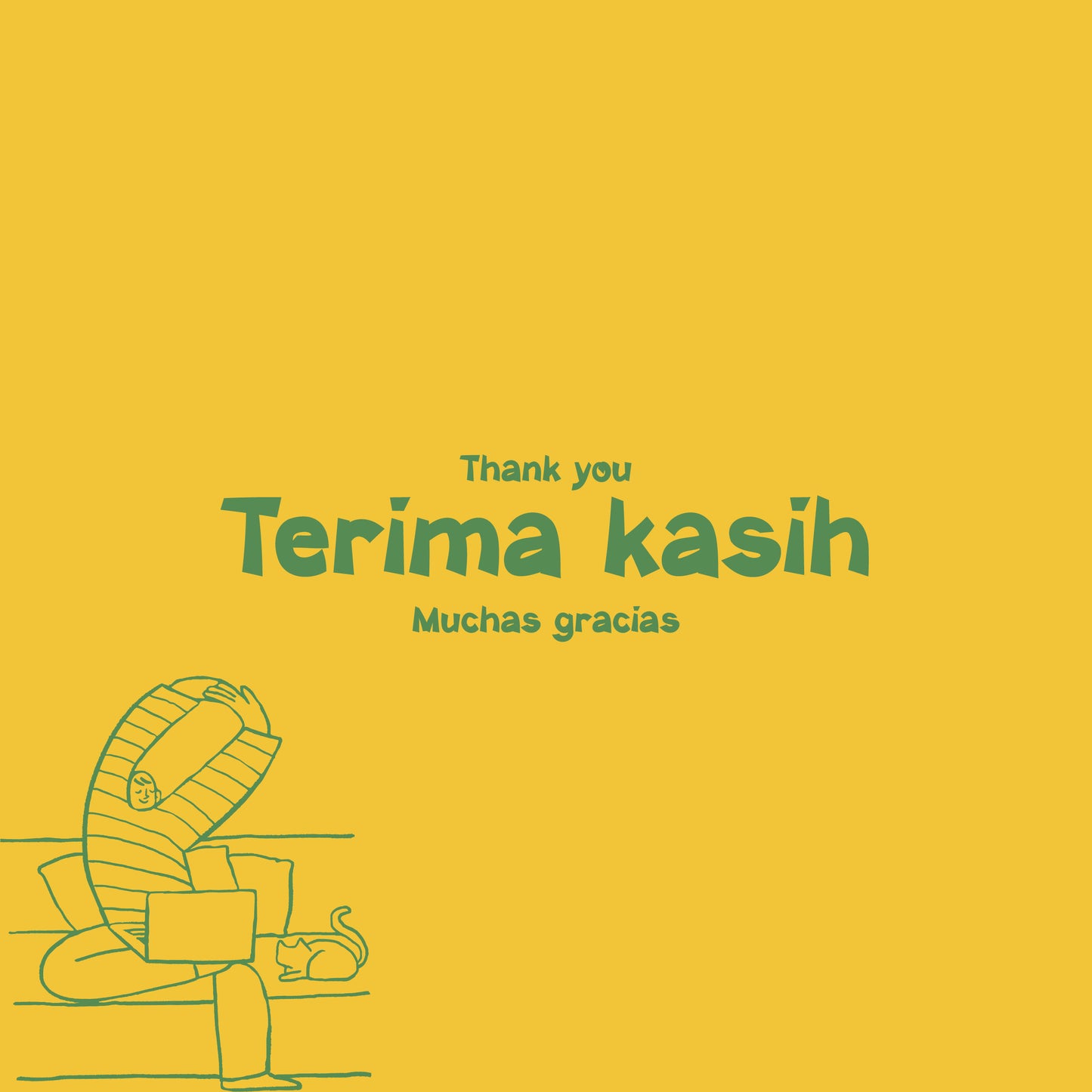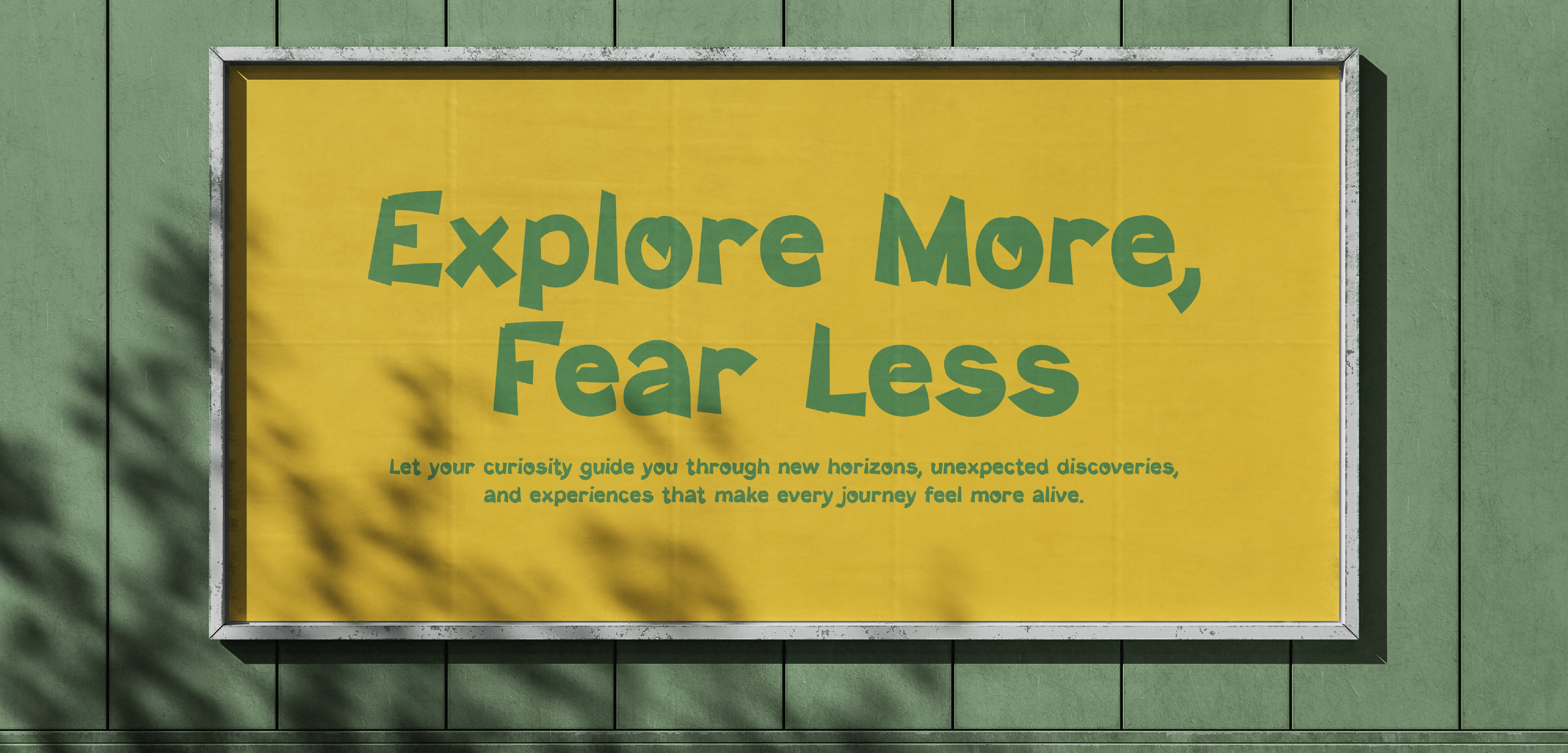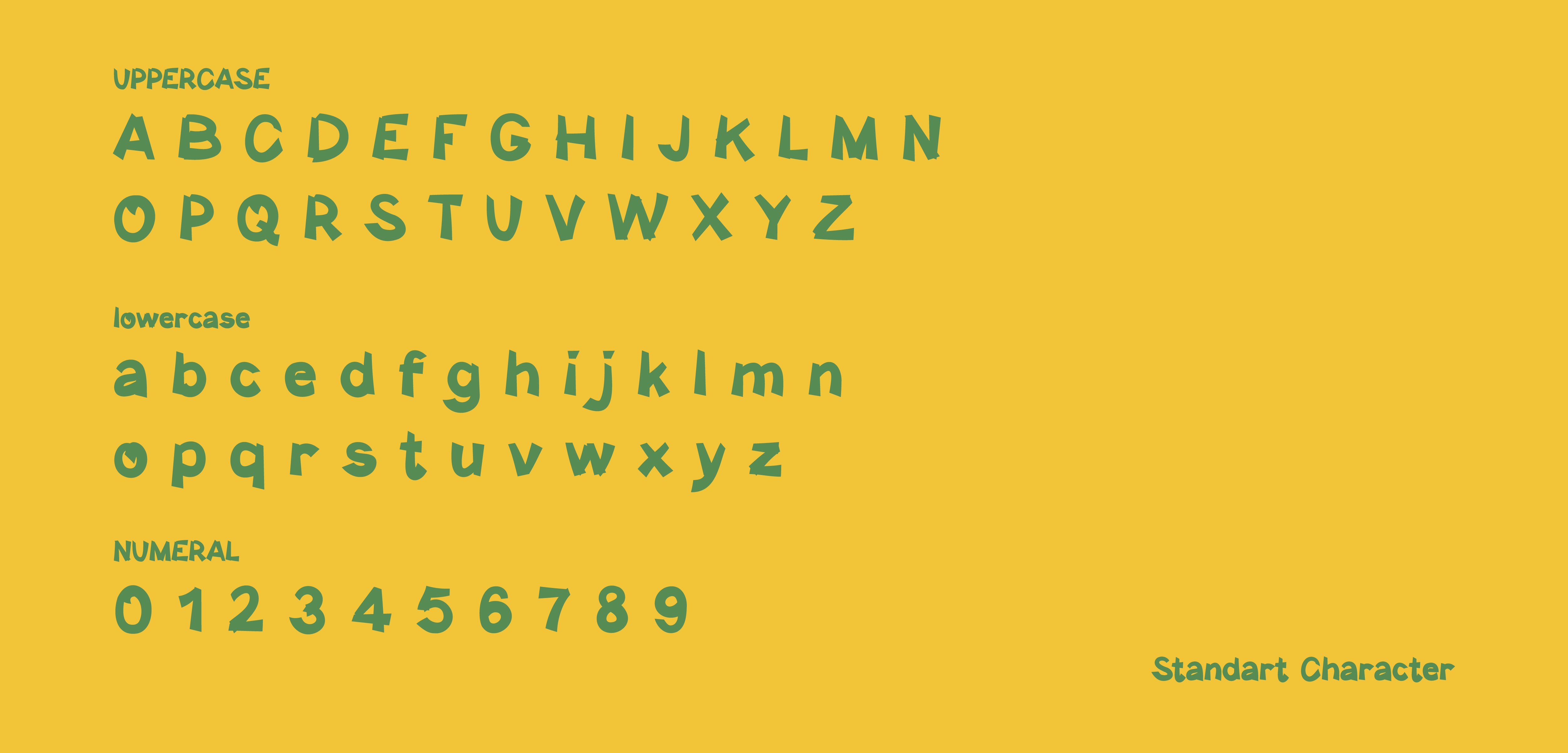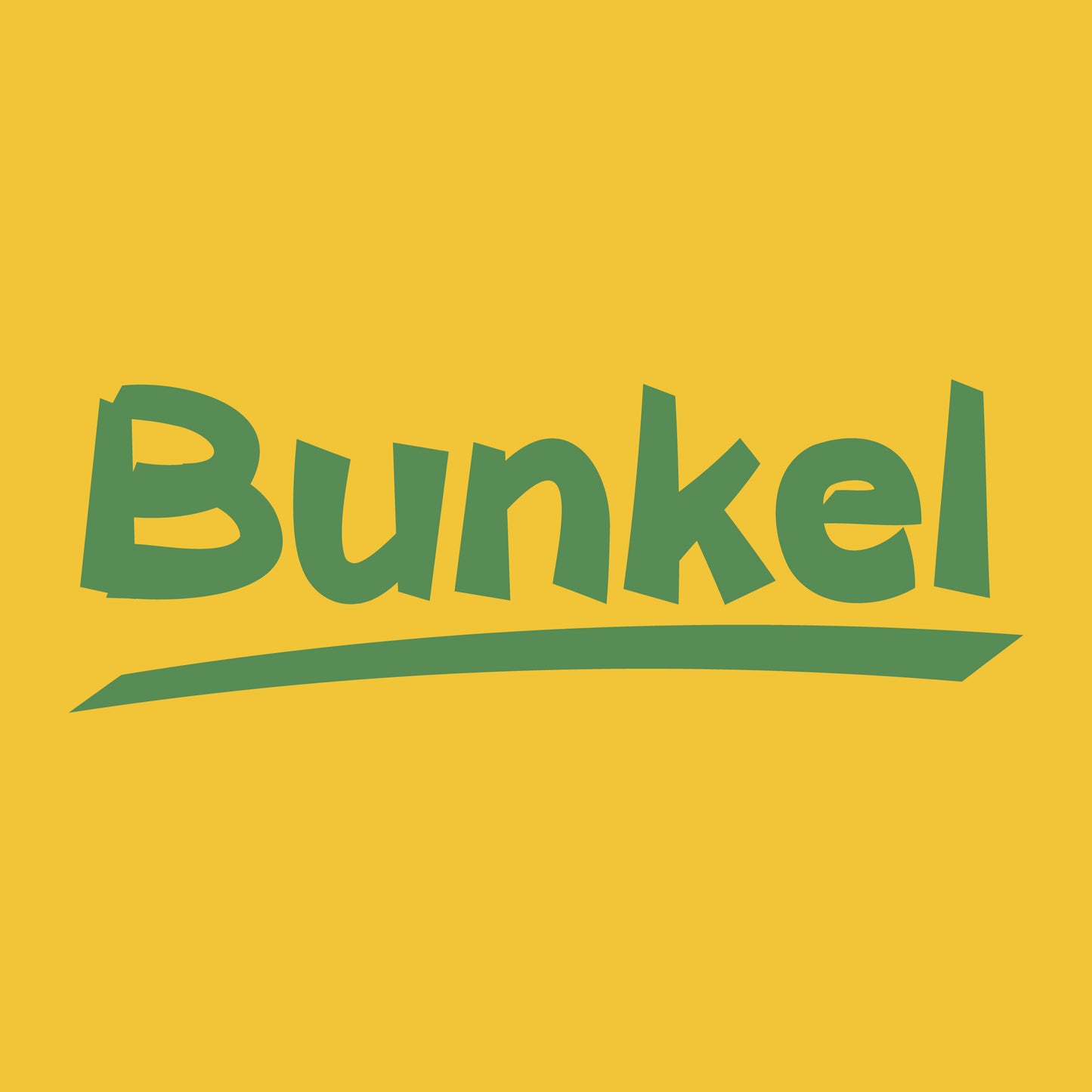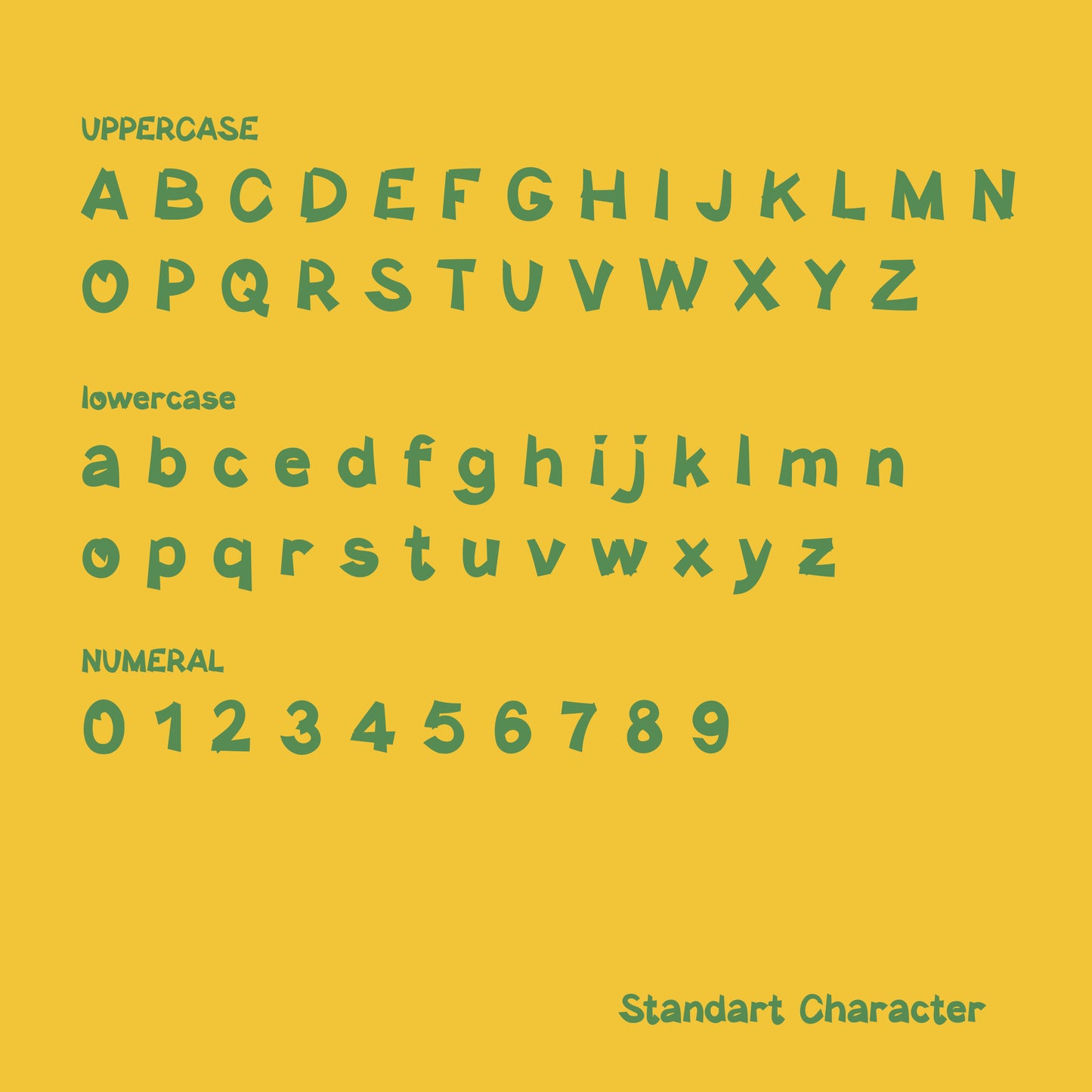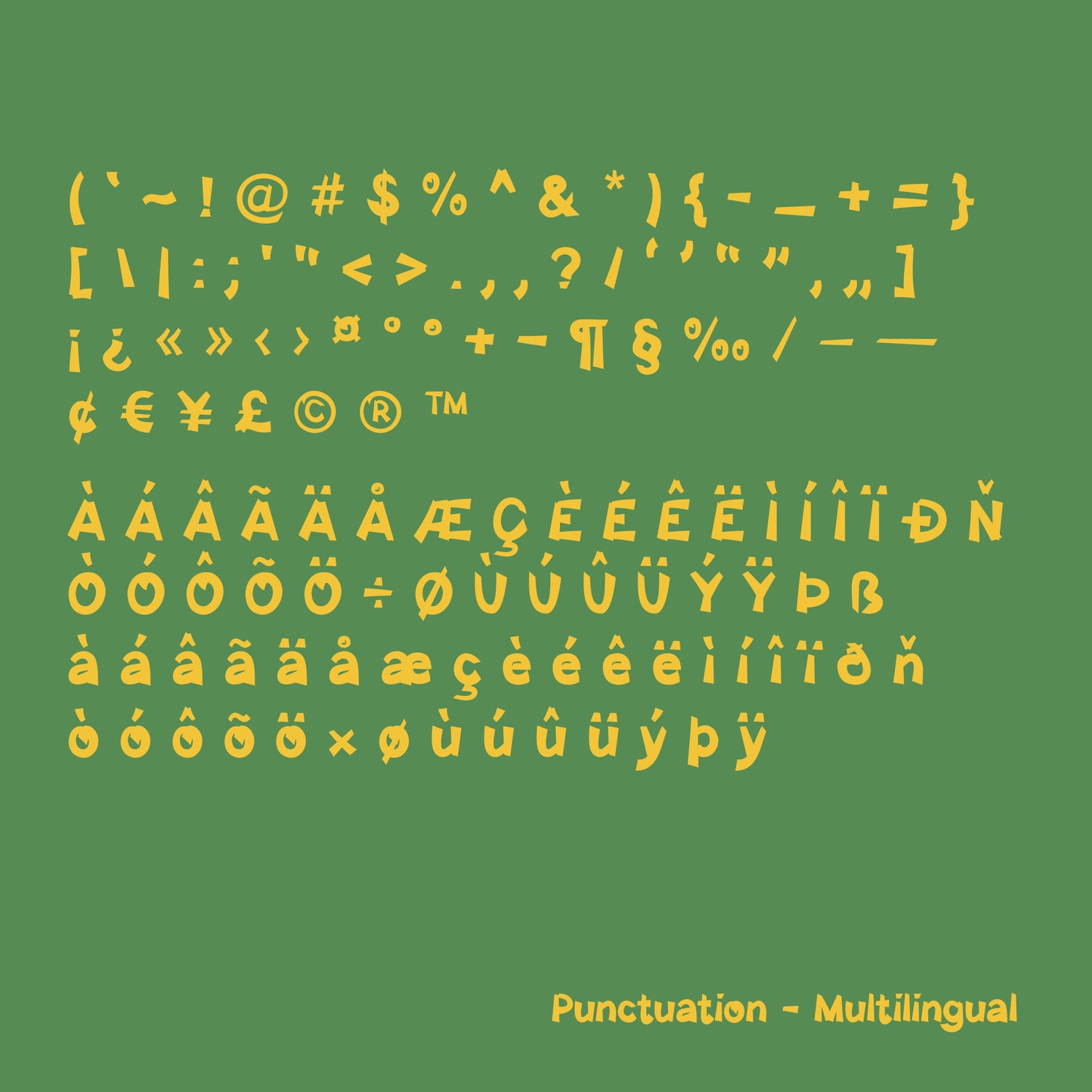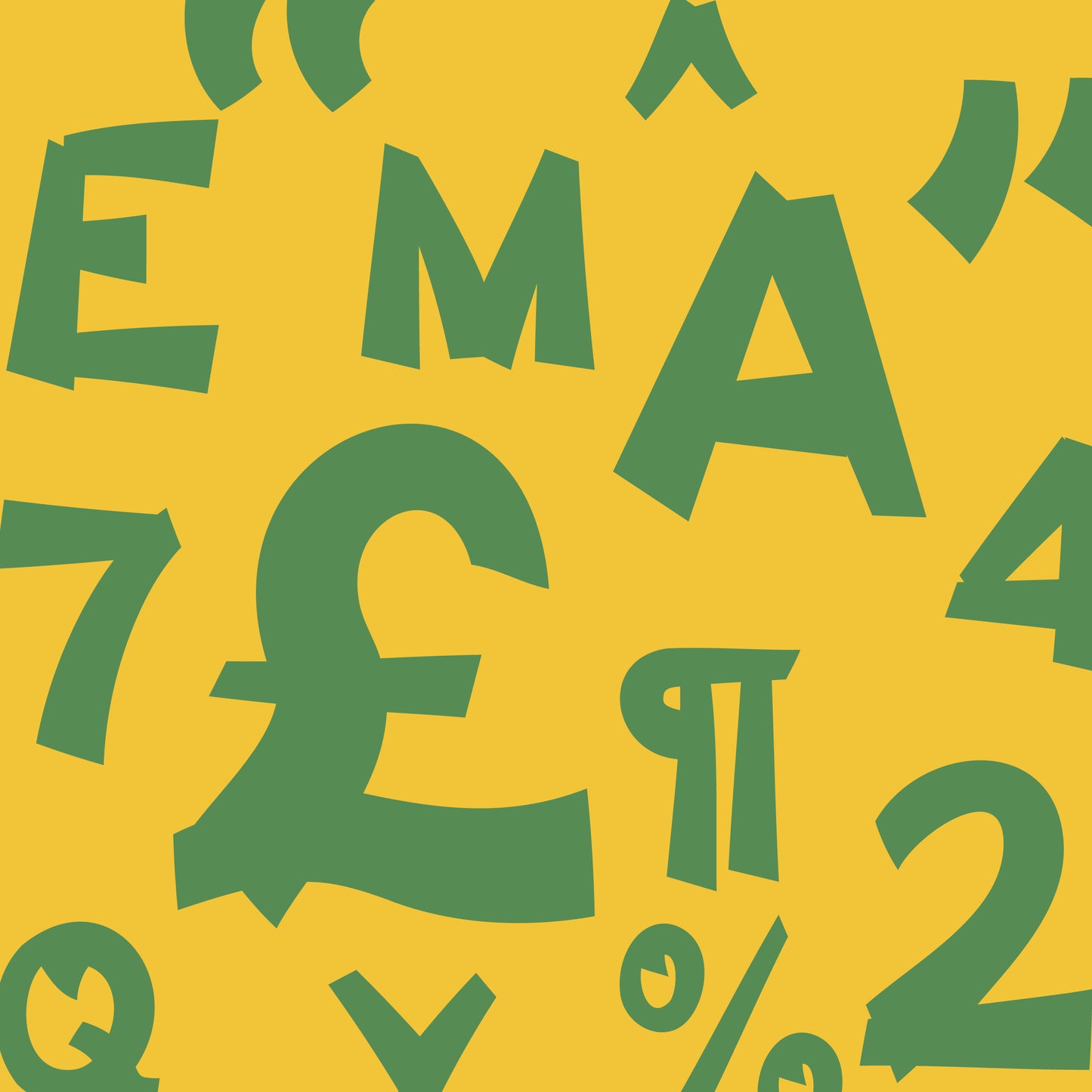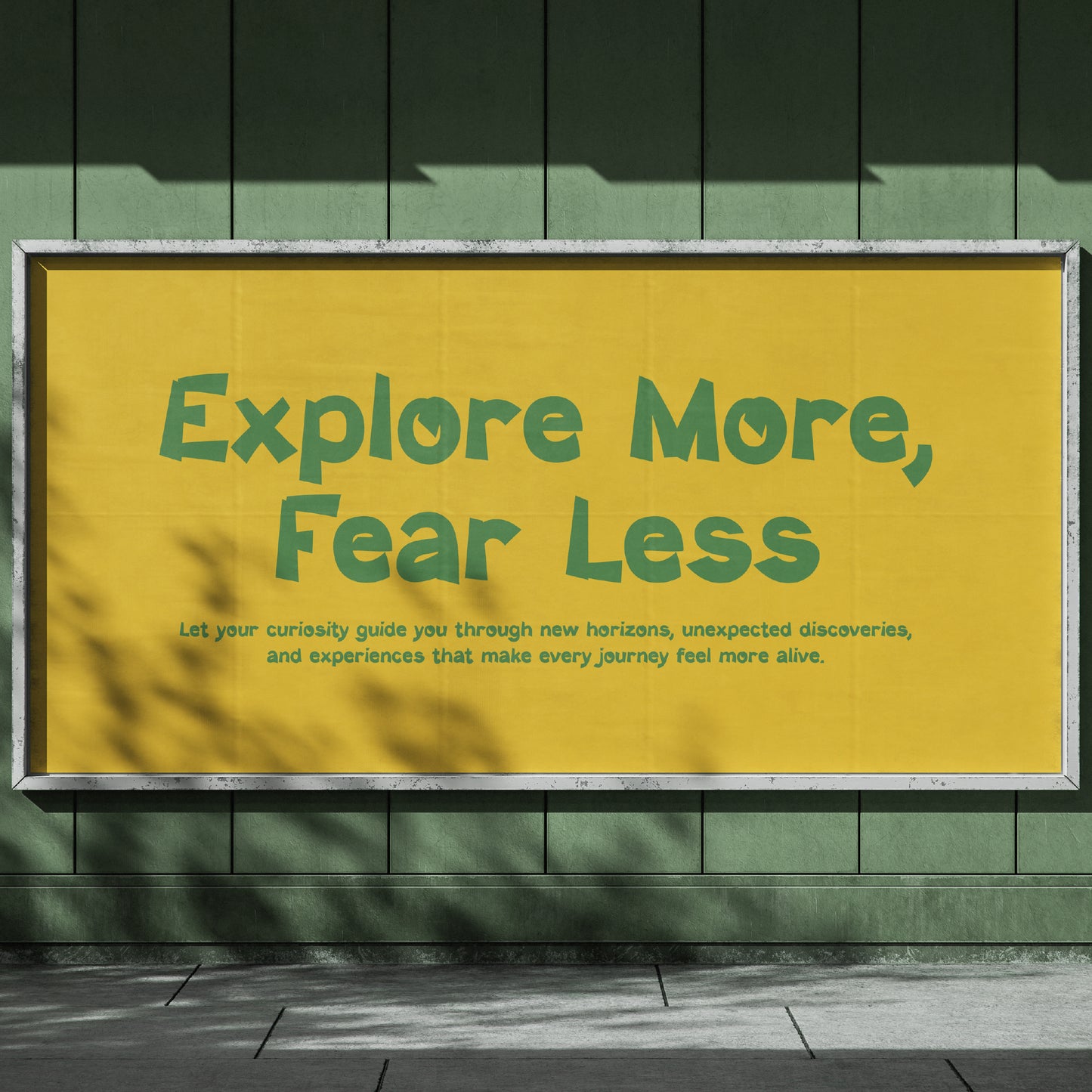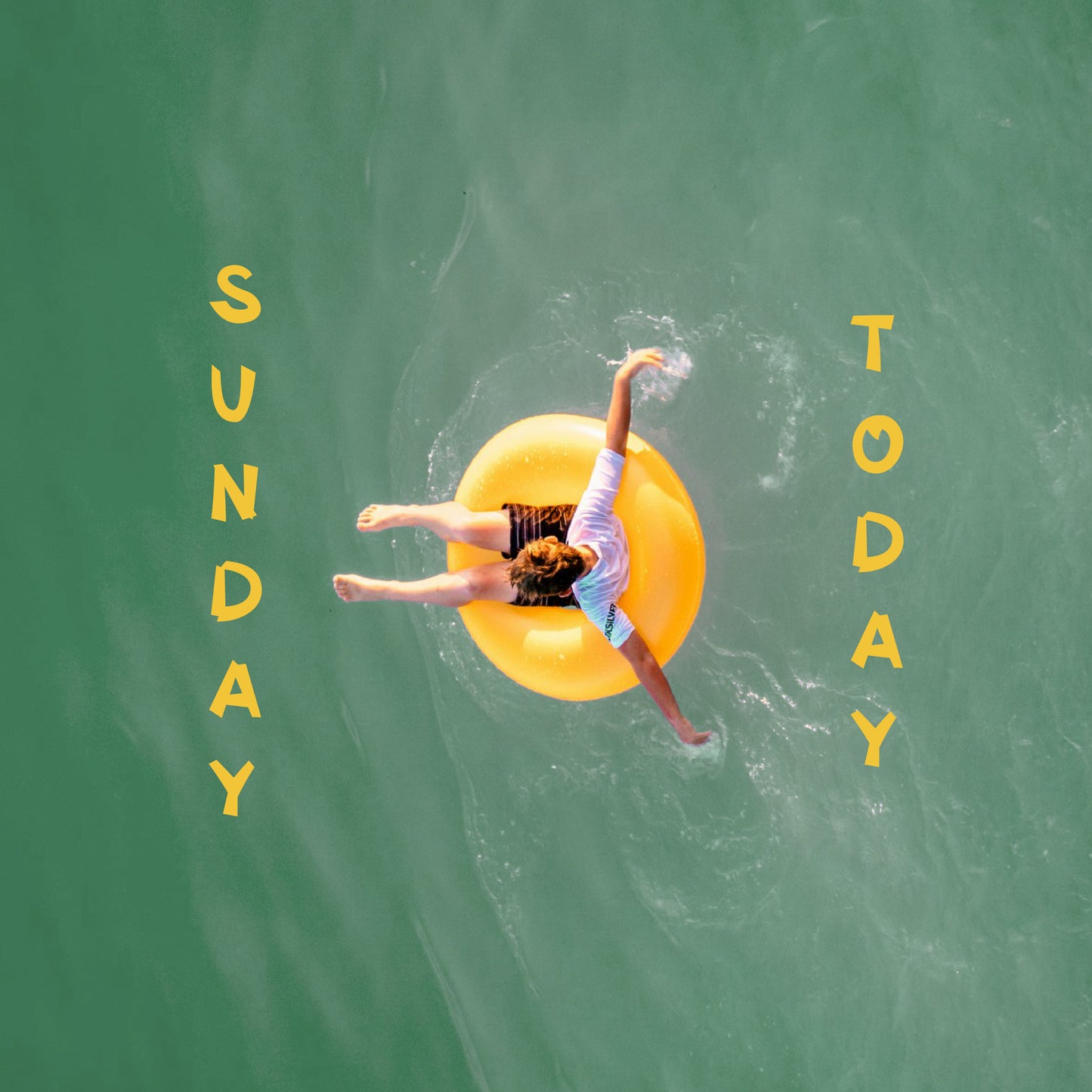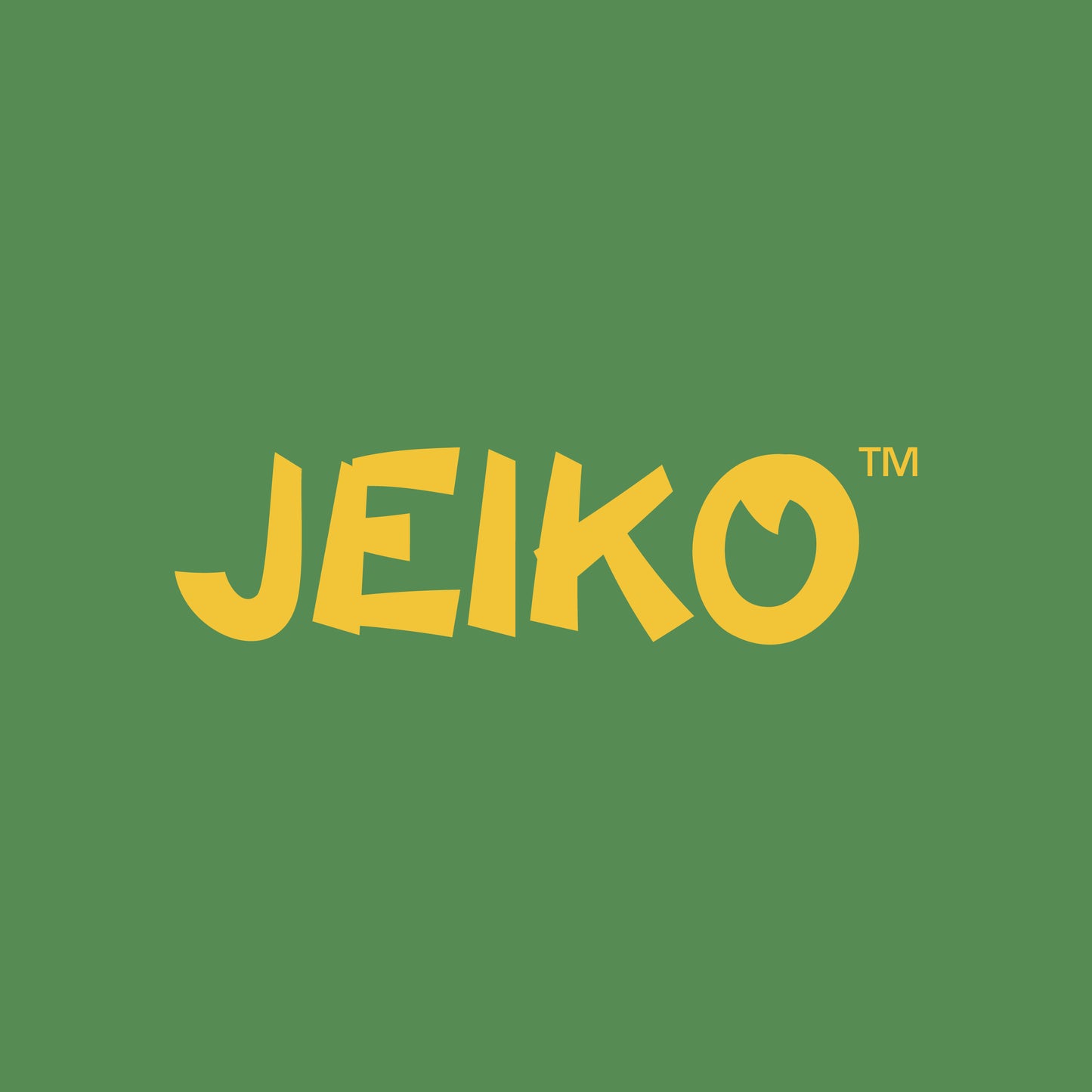
Bunkel
Bunkel is a playful, organic, handwritten display typeface with quirky shapes and expressive character. Designed with an energetic hand-drawn style, Bunkel brings a fun, friendly, and lively personality to any creative project. Its uneven strokes, dynamic angles, and natural imperfections give it a unique charm that feels human, warm, and full of motion.
— SYMBOLS & DIACRITICS
— NUMBERS & PUNCTUATION
— LATIN EXTENDED